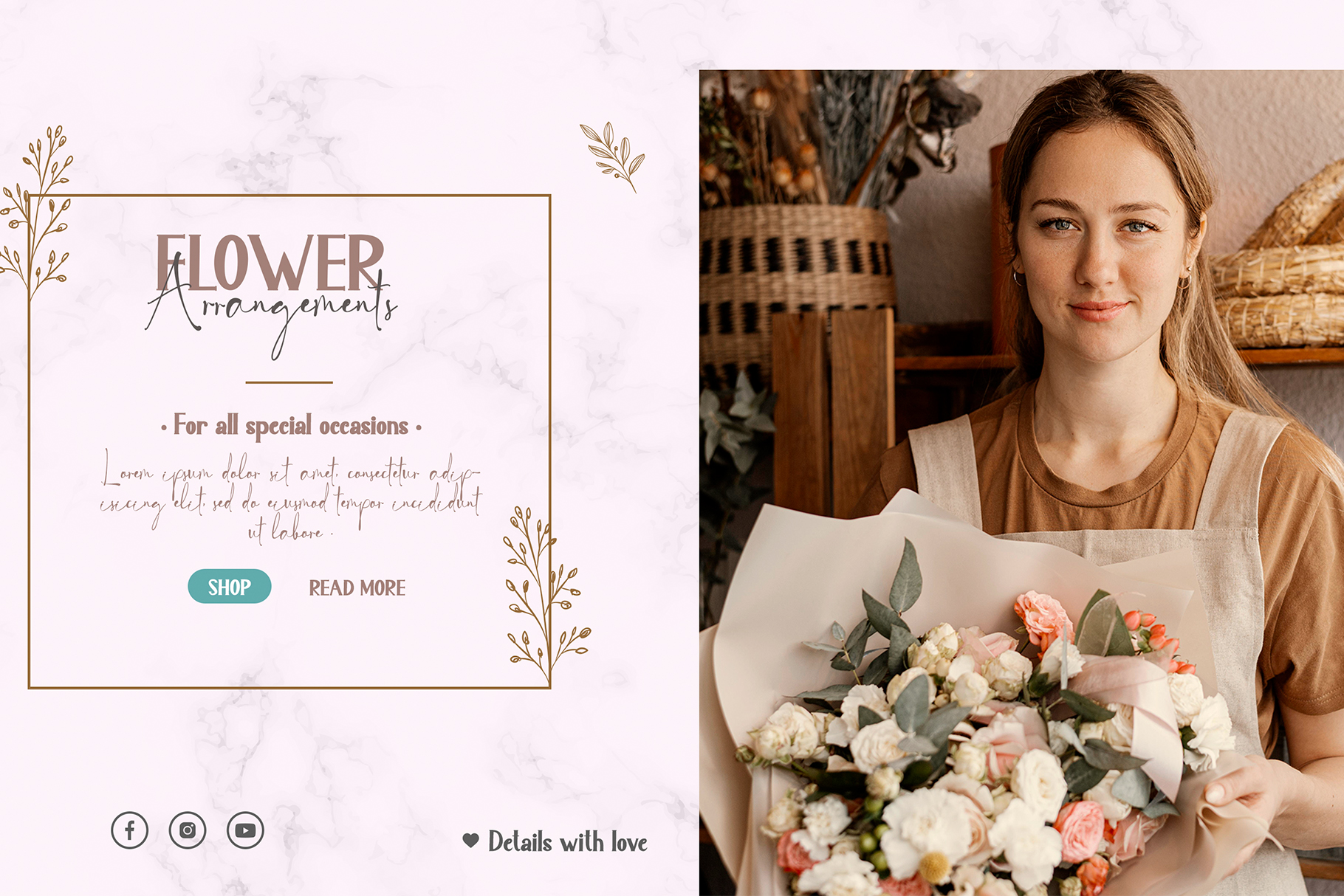
Maletha Collection Font Duo
This is a stunning and comprehensive duo font (script and serif), ideal for giving your projects a branded but friendly feel. The two included styles can be combined together perfectly but are also beautiful on their own.